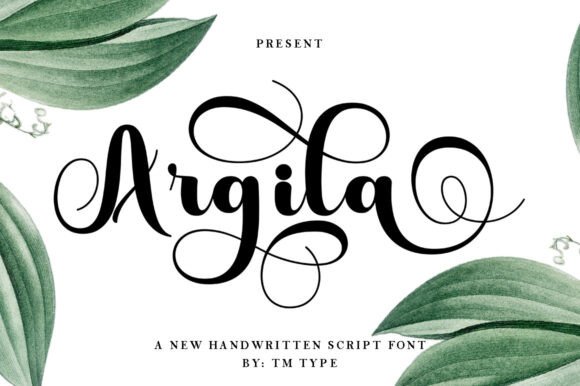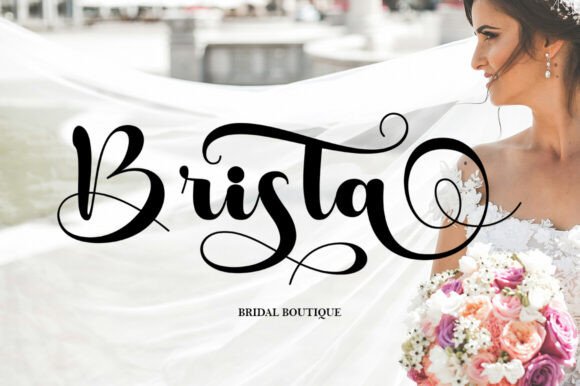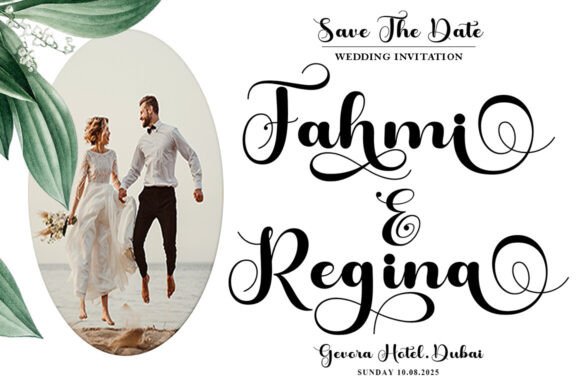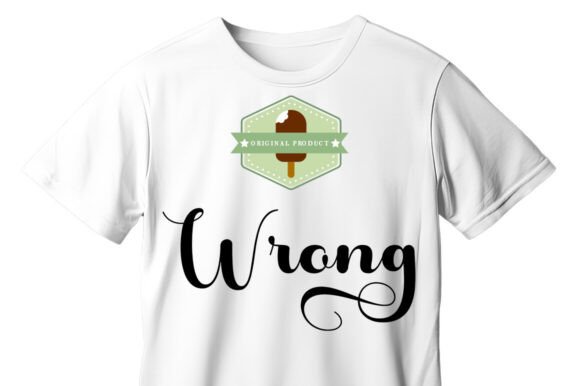
Argila Font: Elegant Handwritten Script for Wedding & Logo Design
About the Argila Font
Experience the unique personality of Argila Font, a font designed for impact. Argila is a sweet and cursive handwritten font. This soft font will look charming on various design ideas. It will add a delightful and romantic touch to any of your projects! Perfect for branding, logos, wedding needs, greeting cards, fashion, lookbooks, marketing promotions, and whenever you want your design to look luxurious and elegant but still casual.
Argila’s soft, cursive nature makes it ideal for headlines, short text blocks on invitations or packaging, and branding elements requiring a touch of elegance and approachability. It excels in projects emphasizing a romantic or feminine aesthetic, such as wedding stationery, beauty products, or fashion-related materials. However, its delicate strokes and varying letterforms make it unsuitable for body text or UI elements where readability is paramount. Extended use will hinder legibility.
Pairing Argila effectively requires considering its inherent softness. A clean, geometric sans-serif like Montserrat would provide a strong contrast and enhance readability when used for supporting text. Alternatively, a classic serif font such as Garamond could create a more traditional, sophisticated feel, complementing Argila’s charm without overwhelming it.
Argila’s overall personality is best described as charming and approachable, yet elegant. It evokes a sense of warmth and sophistication, making it suitable for brands aiming for a luxurious yet friendly image. Avoid pairings that are overly playful or excessively bold, as they may clash with its inherent delicate nature.
Argila Font Usage Examples